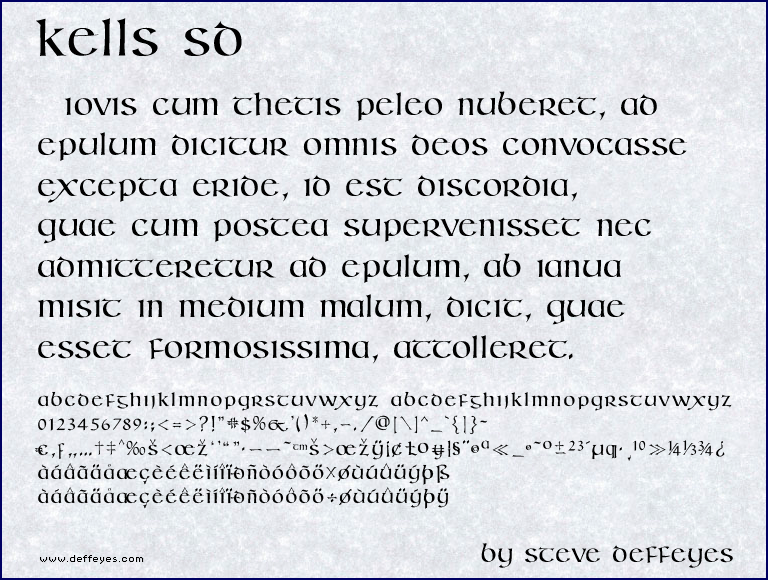
Font name: | Kells SD |
Categories | Gothic, Celtic |
Author: | Steve Deffeyes |
Note by Steve Deffeyes | |
My take on the lettering found in the 7th century Book of Kells. Newly updated Aug-2009 with a full character set. |